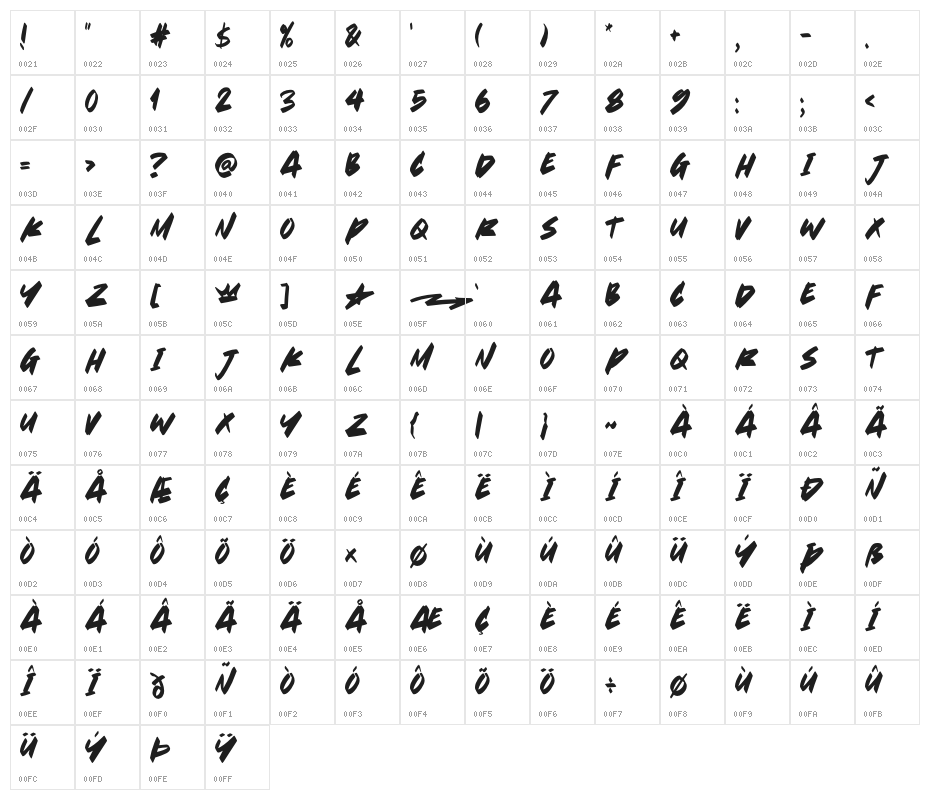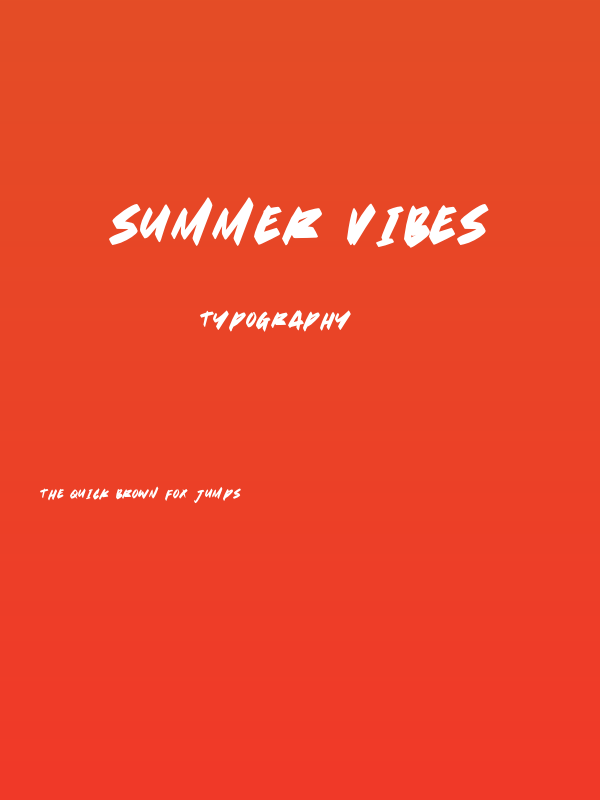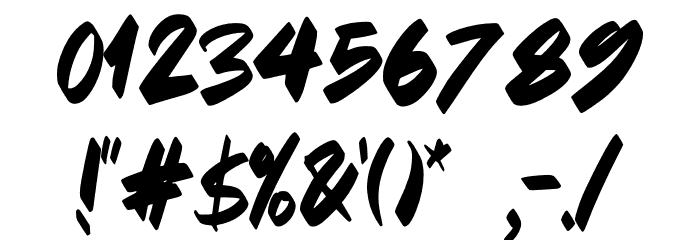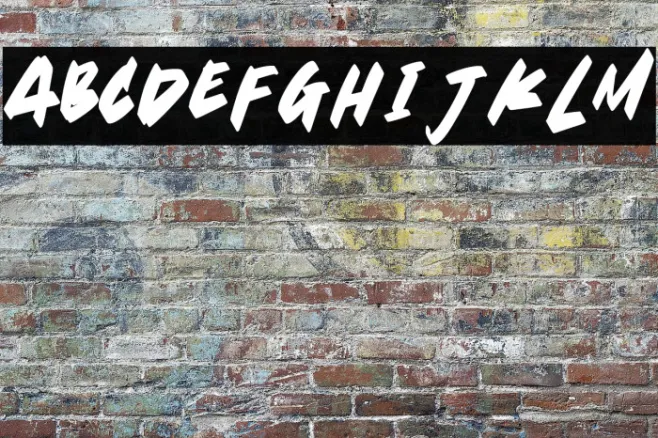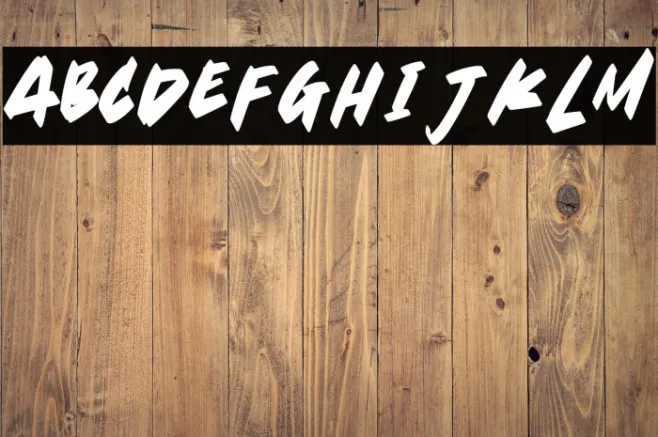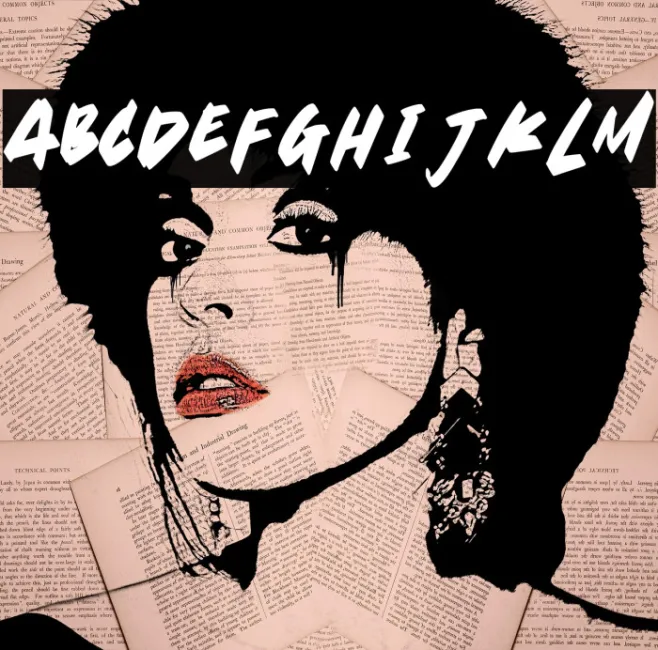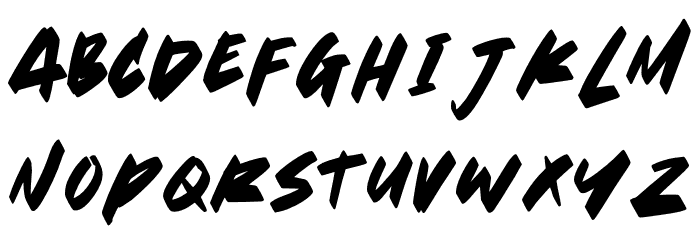
SUMMER VIBES Font
SUMMER VIBES Description
This font exudes a dynamic and energetic vibe, characterized by its bold, brush-like strokes that convey a sense of movement and spontaneity. The letters are slightly slanted, adding to the impression of speed and fluidity. The uppercase and lowercase characters maintain a consistent style, with thick, uneven strokes that give a hand-painted appearance. The numerals and special characters follow the same aesthetic, ensuring a cohesive look across all text. This font is perfect for projects that require a lively and informal touch, such as event posters, social media graphics, or branding for creative industries.